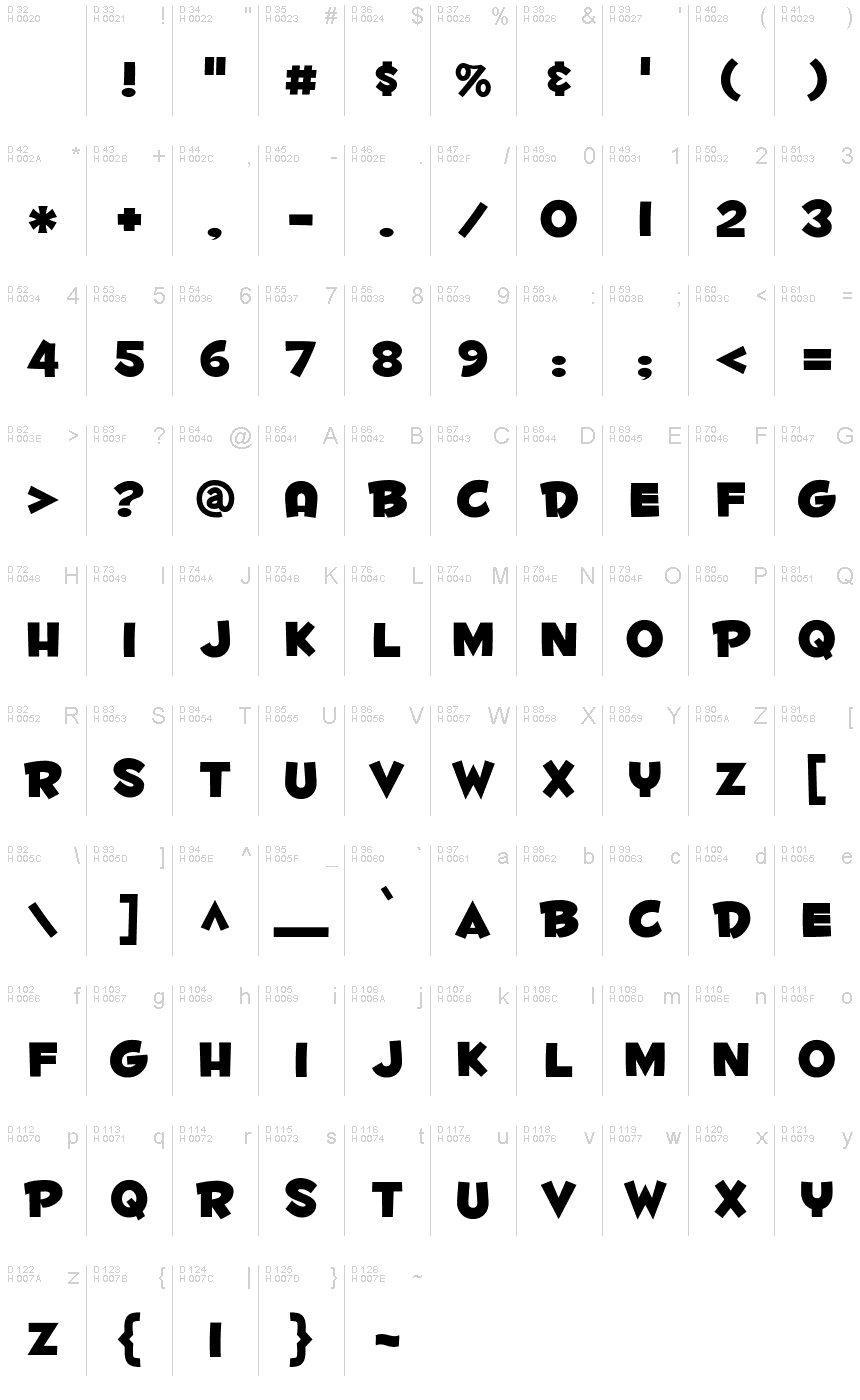
Fontdinerdotcom Huggable
Fontdinerdotcom Huggable font by Font Diner is a free comic display typeface with a big, bouncy personality. Its chunky, rounded letters feel like they’ve been drawn with a thick marker, slightly uneven in a way that’s friendly and human. Heavy inky shapes and tight rhythm give it a loud, shouty charm that grabs attention without feeling harsh or edgy.
Using Fontdinerdotcom Huggable, headlines instantly feel playful-great for kids’ book covers, birthday invitations, toy packaging, classroom posters, YouTube thumbnails, and sticker designs. This free font works best oversized, letting those soft curves really pop, and pairs nicely with a clean geometric sans serif for supporting text.